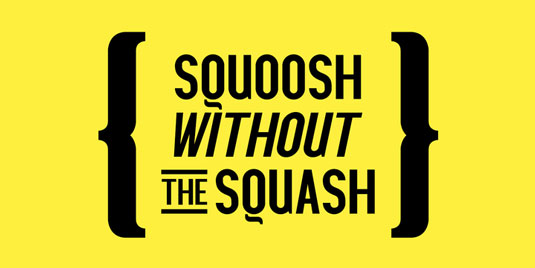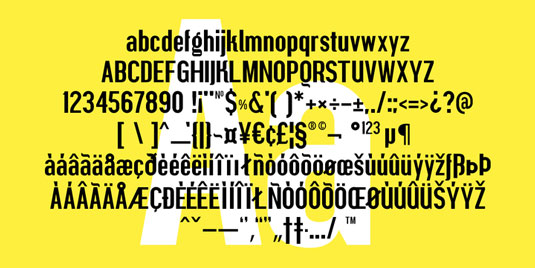
Font of the day: Squoosh Gothic
Squoosh Gothic by Greg Ponchak
An upright and condensed typeface, Squoosh Gothic was created by designer Greg Ponchak. Available from My Fonts, the font is described as being having a 'mature but unmistakably witty attitude, which can go a great distance to lending a sense of culture and an air of scintillation to your designs'.